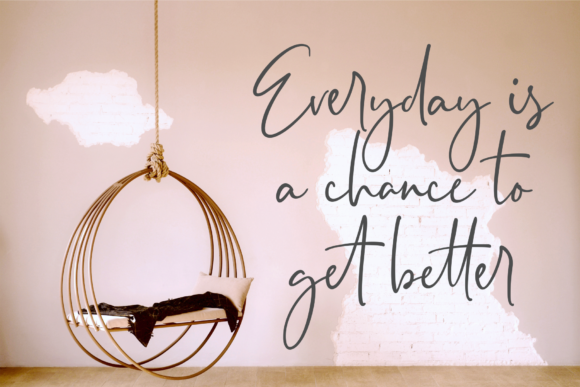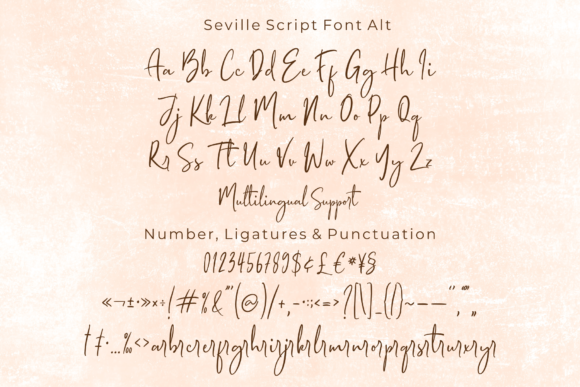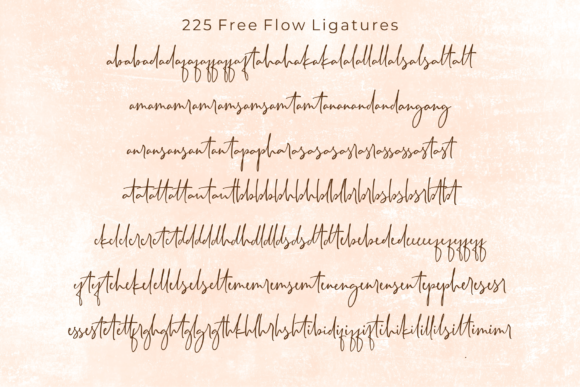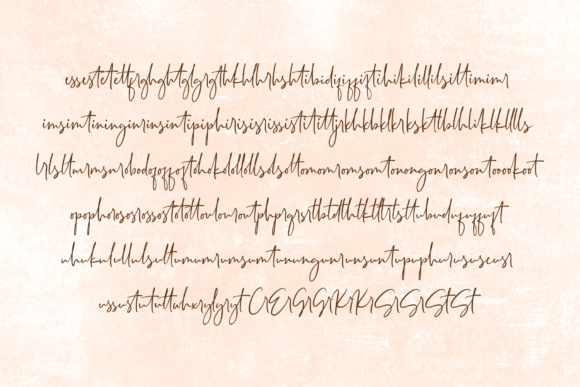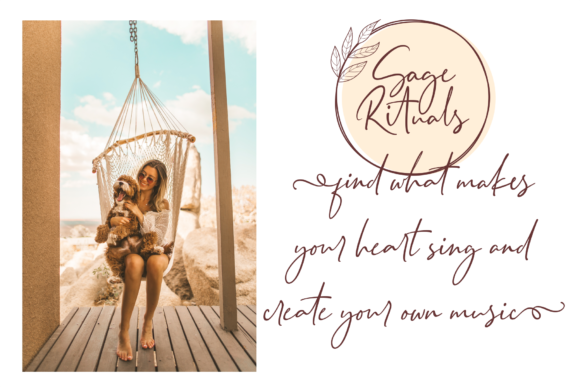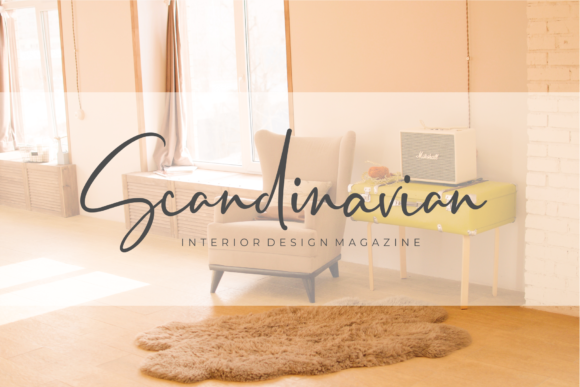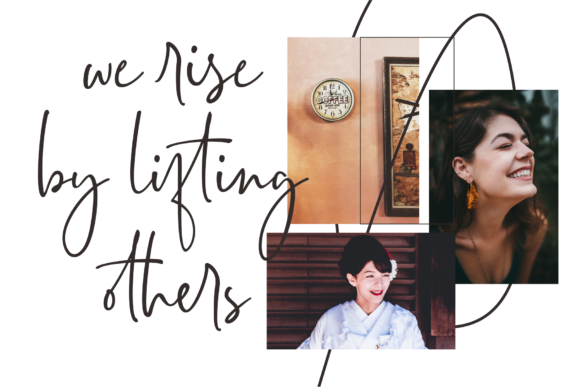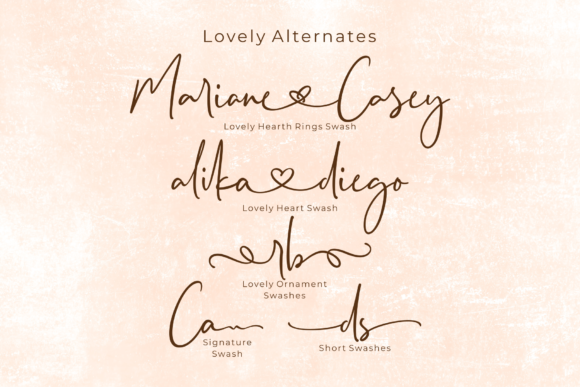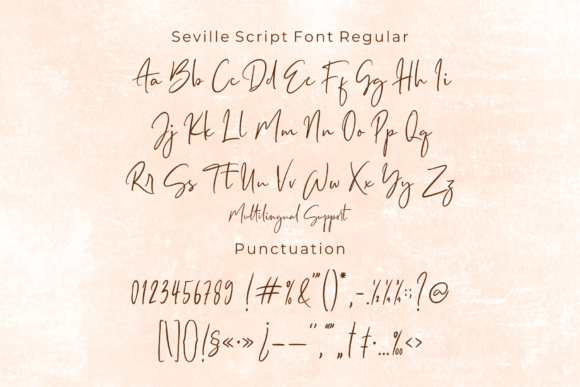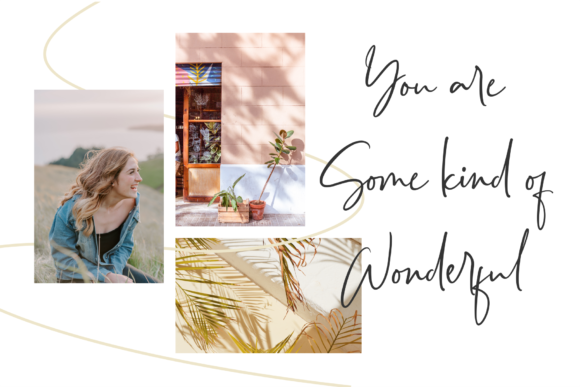
Seville Script Font
About Seville Script Font
The Seville is a casual, yet luxury script with a natural free flow. It has a simple but sweet style and comes in four variations. Also included are 40+ exclusive wreath logos!